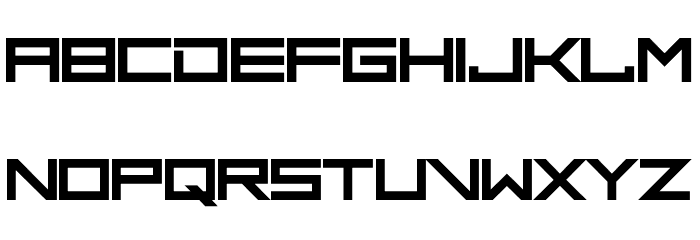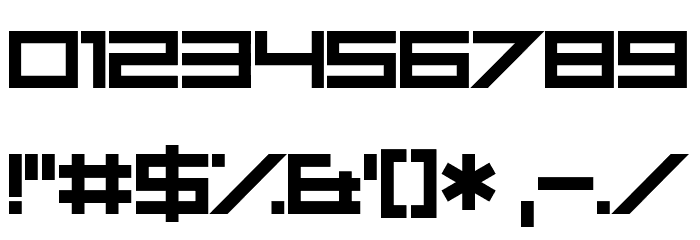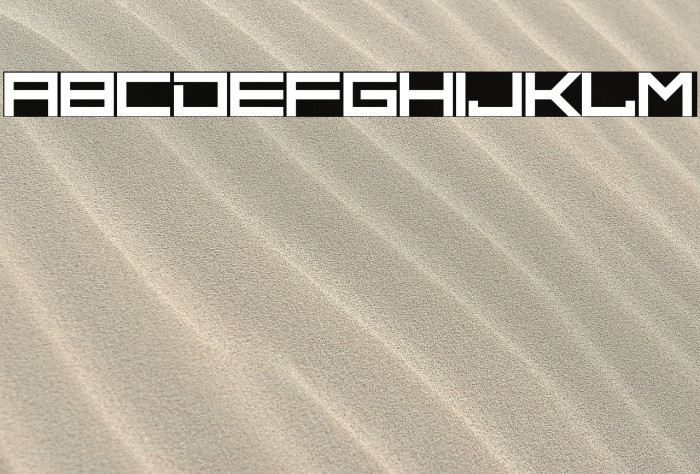
Blend Her Font
This font features a bold, geometric design with a futuristic and digital aesthetic. The characters are constructed with straight lines and sharp angles, giving them a blocky appearance. The uppercase and lowercase letters maintain a consistent height, enhancing the uniformity of the typeface. The numbers and special characters follow the same design principles, ensuring a cohesive look across all glyphs. The font's structure is reminiscent of digital displays or sci-fi themes, making it suitable for modern and tech-oriented projects. Its strong visual impact is ideal for grabbing attention in headlines or logos.
A bold, geometric font with a futuristic, digital style.
- Proposed Projects: Ideal for tech branding, sci-fi book covers, digital interfaces, and modern advertising.